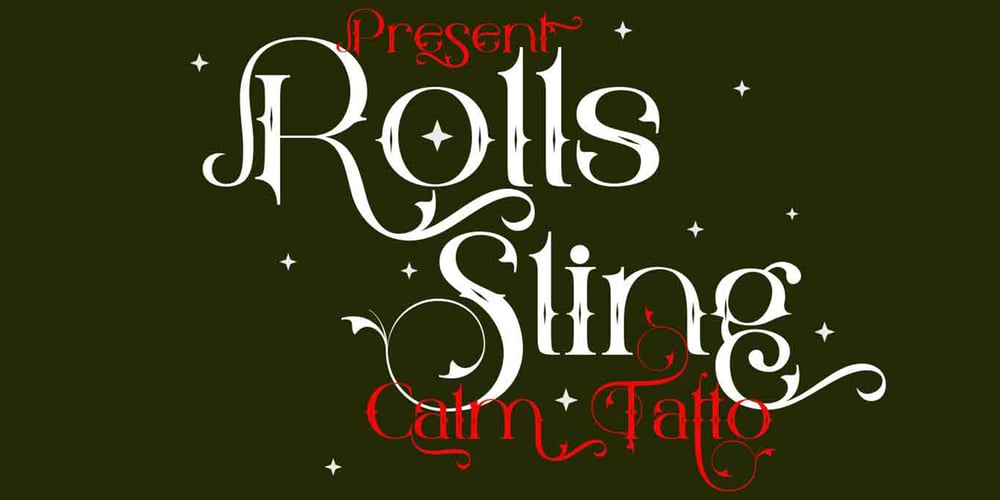
Rolls Sling Font Family was designed by Ibram Syah and published by Jehansyah. Rolls Sling contains 2 styles and family package options. Rolls Sling this is a font that comes from its predecessor with us modifying it into a soft tattoo and very friendly to use, this design will depict luxury in a very confident form, there are several alternatives that you can use, to make your design look more manly and boldinclude :numericpunctuationalternateThank You Very Much